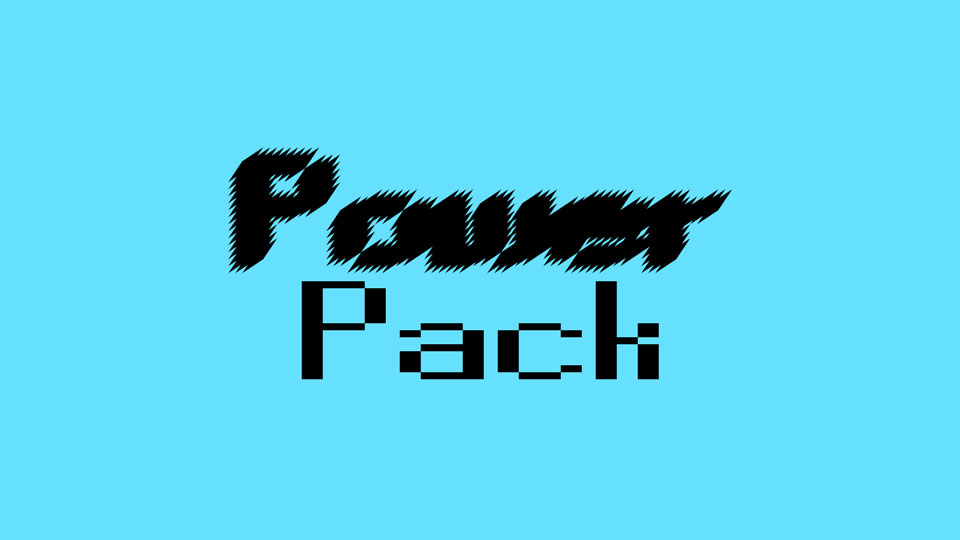
Power Pack is a variable pixel font with an energy power-charged look that electrifies your designs with dynamic intensity. It features sharp, angular letterforms composed of individual pixels, creating a sense of movement and vibrancy. Ideal for video game interfaces, tech branding, futuristic designs, and eye-catching posters, this font adds a high-voltage, digital flair to your text.
Power Pack is crafted to convey a sense of energy and excitement, ensuring your designs stand out with a bold, impactful presence. The charged look of the font gives it a unique and edgy aesthetic, perfect for projects that demand attention and innovation.